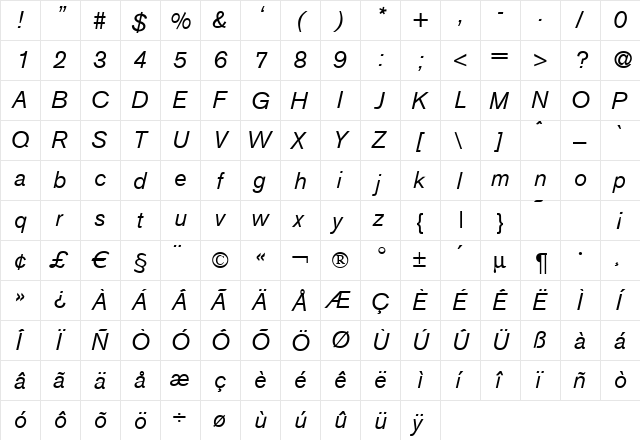
A750-Sans Italic
Design Context for A750-Sans Typeface
A750-Sans is a composed and adaptable typeface that performs quietly and consistently across a wide range of design contexts. The dynamic lean of this cut emphasises speed and emphasis in any layout.